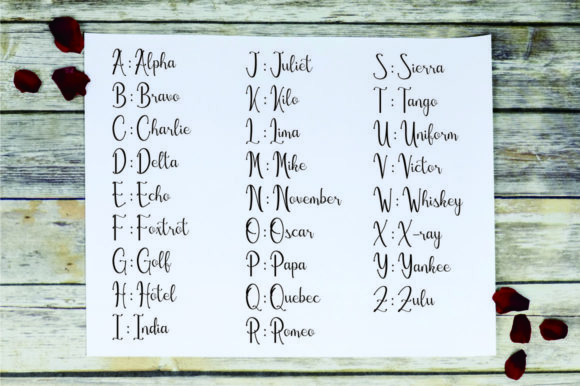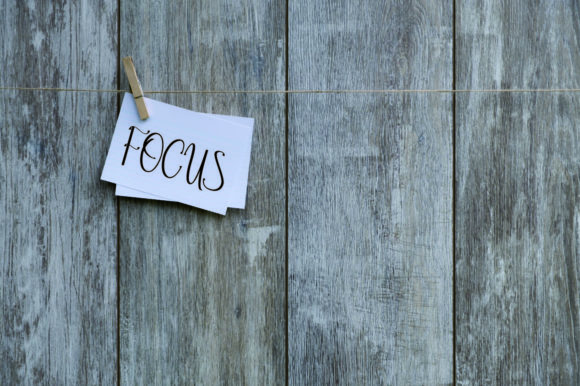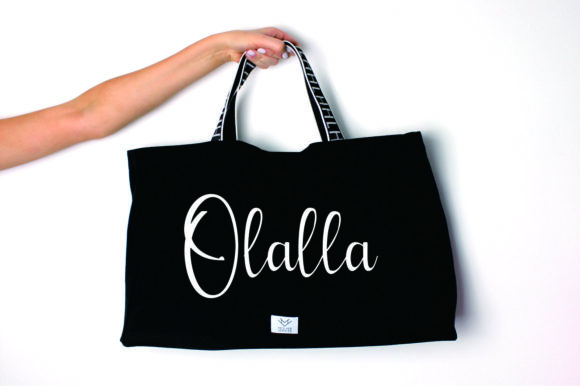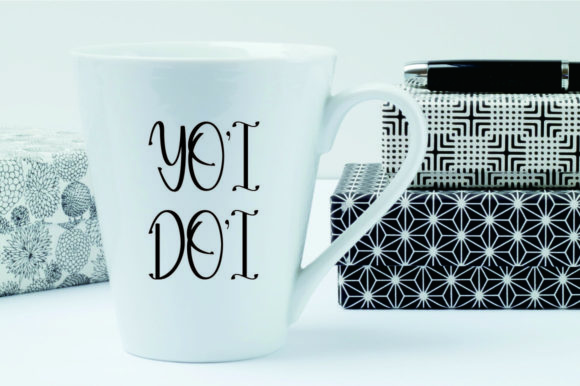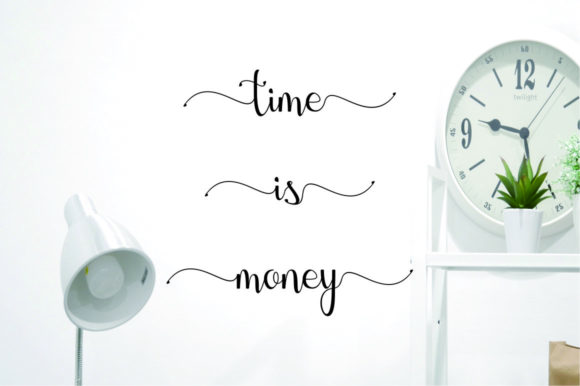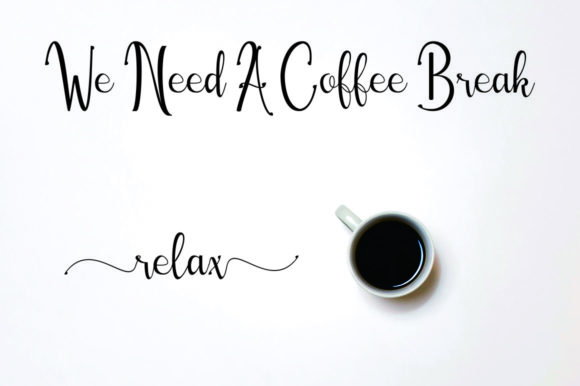
Introducing Fluffy Font: The Modern, Sweet, and Cheerful Script Font for Your Design Needs
Are you tired of using the same old fonts for your designs? Look no further! Fluffy Font is here to add a unique touch to your next project. This modern, sweet, and cheerful script font is versatile and perfect for a wide range of applications, from stationery to branding. In this article, we’ll dive into the world of Fluffy Font and explore its features, benefits, and uses.
What is Fluffy Font?
Fluffy Font is a beautiful script font that exudes a sense of sweetness and cheerfulness. Its modern design makes it perfect for designers and crafters looking for a fresh and unique font to add to their collection. The font’s versatility is one of its standout features, making it suitable for various design projects, including:
- Stationery: Create adorable invitations, greeting cards, and letters with Fluffy Font.
- Branding: Add a touch of whimsy to your brand’s identity with this charming font.
- Digital design: Use Fluffy Font to create engaging social media graphics, blog posts, and website content.
- Crafting: Perfect for crafters, Fluffy Font can be used to create beautiful journal entries, scrapbooking pages, and DIY projects.
Features of Fluffy Font
So, what makes Fluffy Font so special? Here are some of its key features:
- Unique and modern design: Fluffy Font boasts a fresh and contemporary look that’s sure to grab attention.
- High-quality letters: The font features beautifully crafted letters with intricate details.
- Easy to read: Despite its ornate design, Fluffy Font is surprisingly easy to read, making it perfect for body text and headlines.
- Versatile: Use Fluffy Font for both digital and print projects.
Benefits of Using Fluffy Font
By incorporating Fluffy Font into your design projects, you’ll enjoy several benefits, including:
- Standing out from the crowd: With Fluffy Font, you’ll add a unique touch to your designs, setting them apart from others.
- Emotional connection: The font’s cheerful and sweet design helps create an emotional connection with your audience.
- Flexibility: Use Fluffy Font for a wide range of projects, from formal to informal designs.
- Time-saving: The font’s high-quality design saves you time and effort, as you won’t need to create custom letters or graphics.
Tips for Using Fluffy Font
To get the most out of Fluffy Font, here are some tips to keep in mind:
- Pair it with other fonts: Combine Fluffy Font with other fonts to create a unique and visually appealing design.
- Experiment with colors: Try out different color schemes to find the perfect match for your design.
- Use it for headlines and titles: Fluffy Font is perfect for grabbing attention, so use it for headlines and titles.
- Don’t be afraid to get creative: Fluffy Font is versatile, so don’t be afraid to experiment and try new things.
In conclusion, Fluffy Font is a modern, sweet, and cheerful script font that’s perfect for designers and crafters looking to add a unique touch to their designs. With its versatility, high-quality design, and ease of use, Fluffy Font is guaranteed to become a favorite in your font collection. So, what are you waiting for? Download Fluffy Font today and start creating stunning designs that will leave a lasting impression!
Whether you’re a seasoned designer or a crafty DIY enthusiast, Fluffy Font is sure to inspire your next creative project. So, go ahead, get fluffy, and let your designs shine!